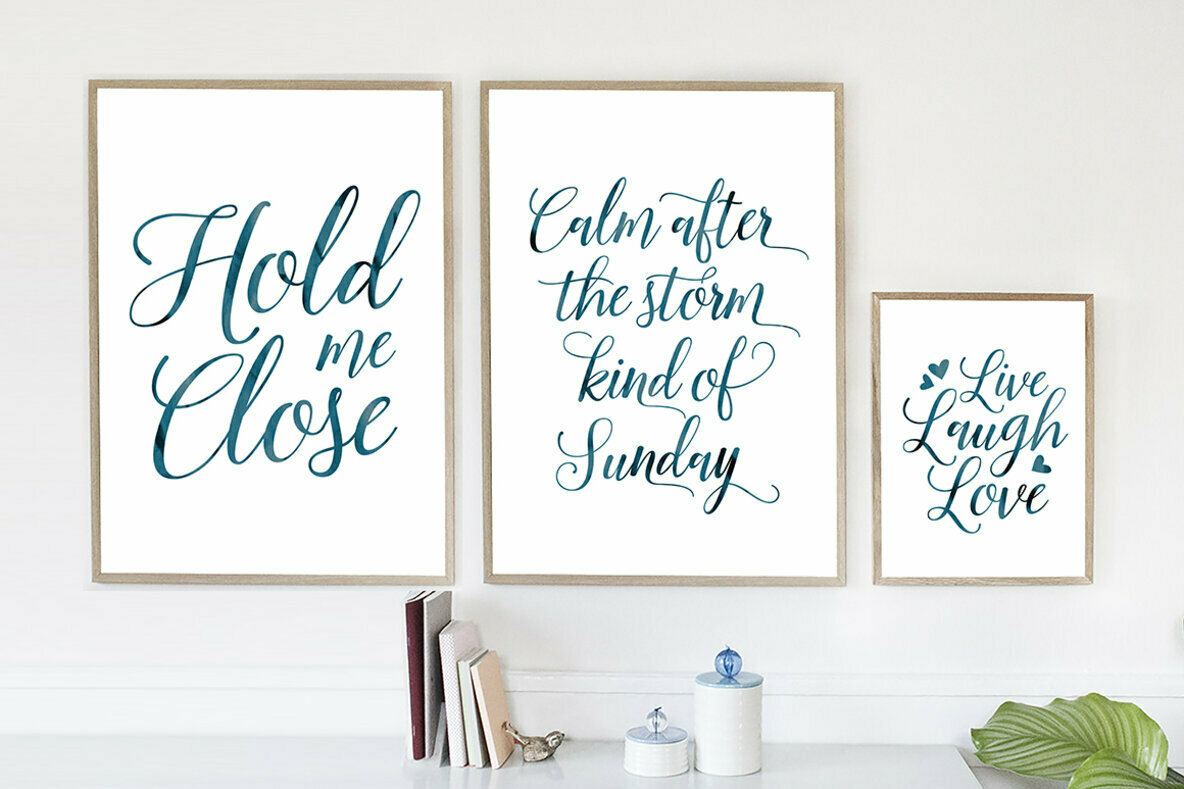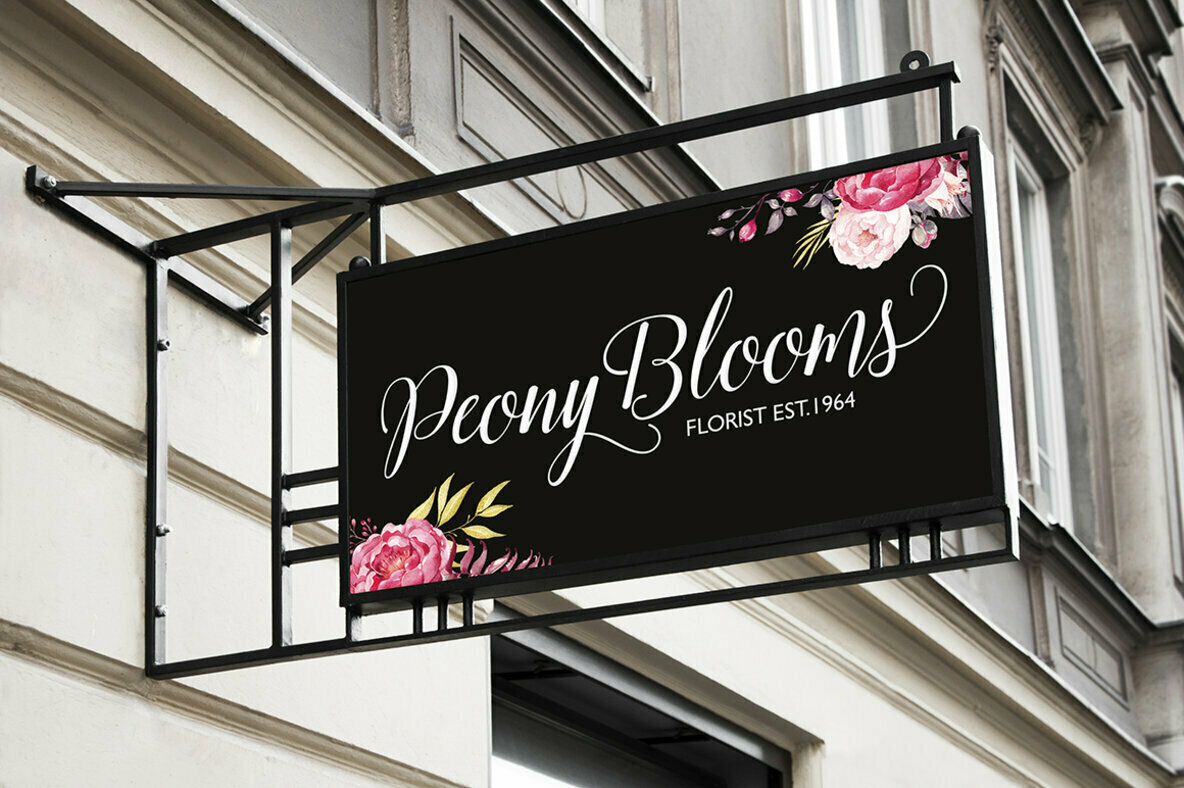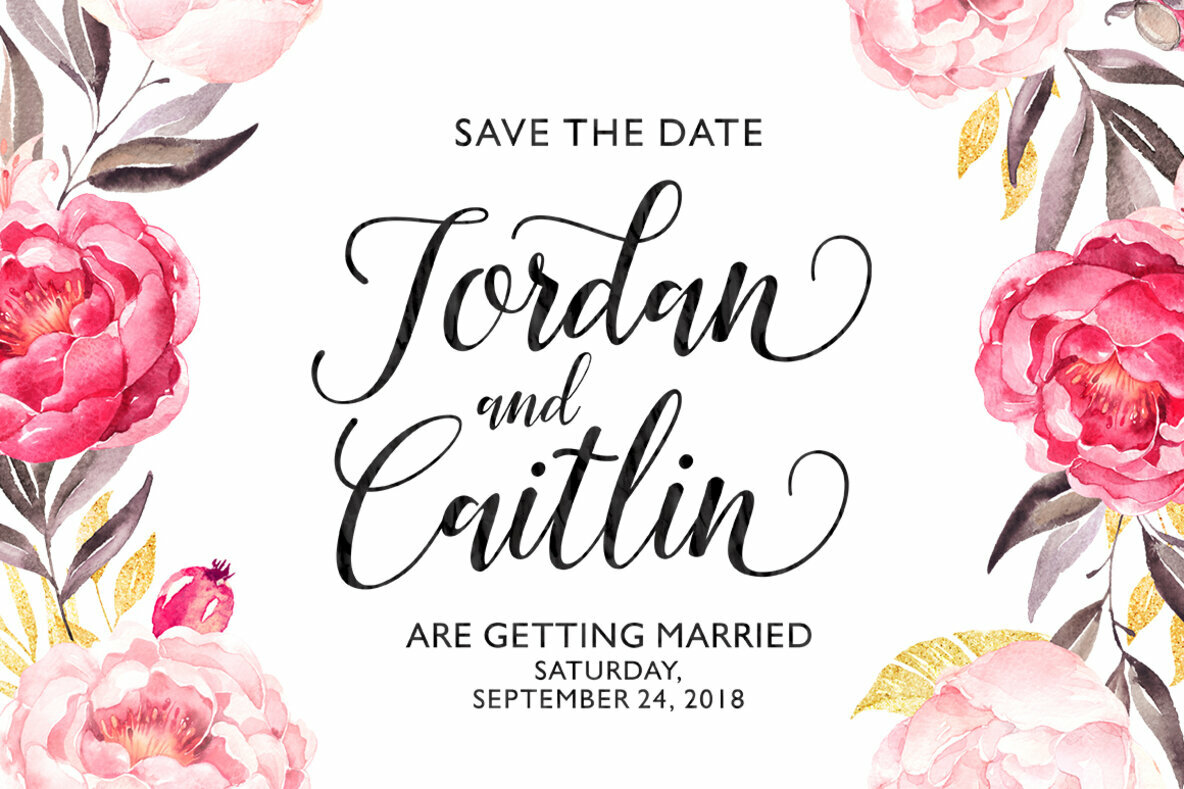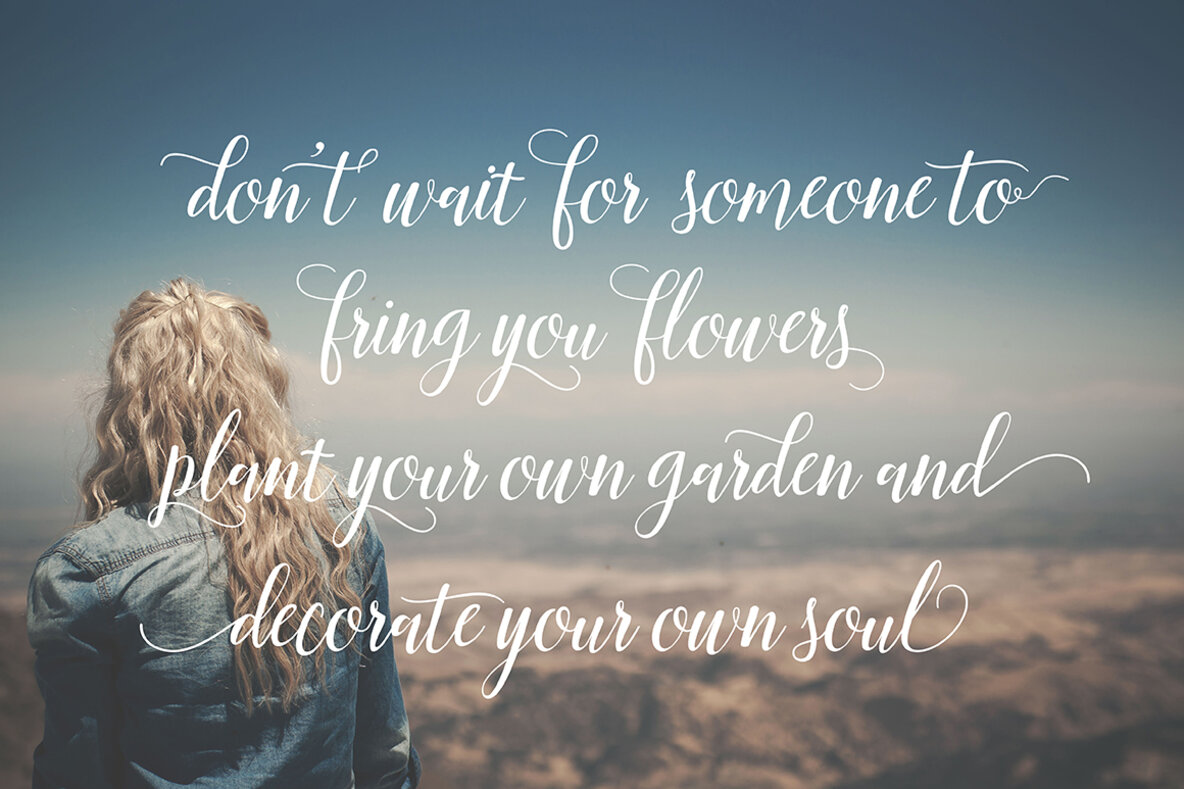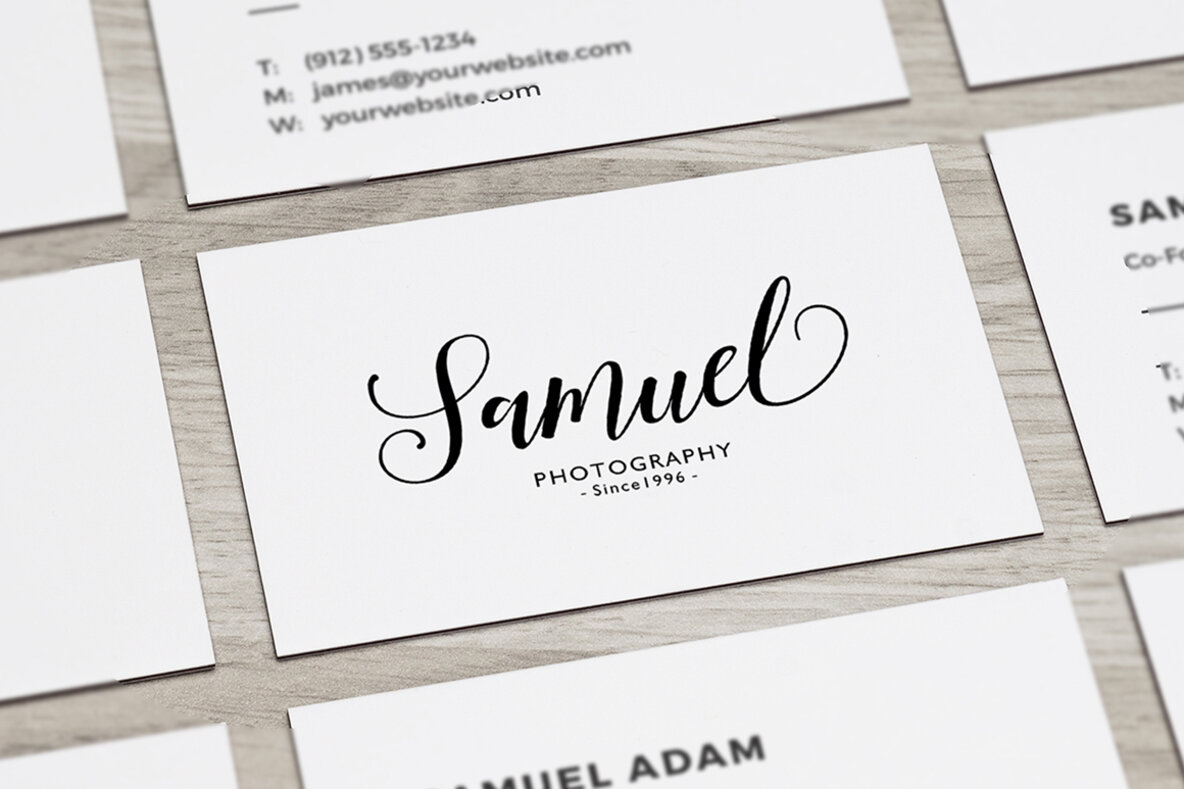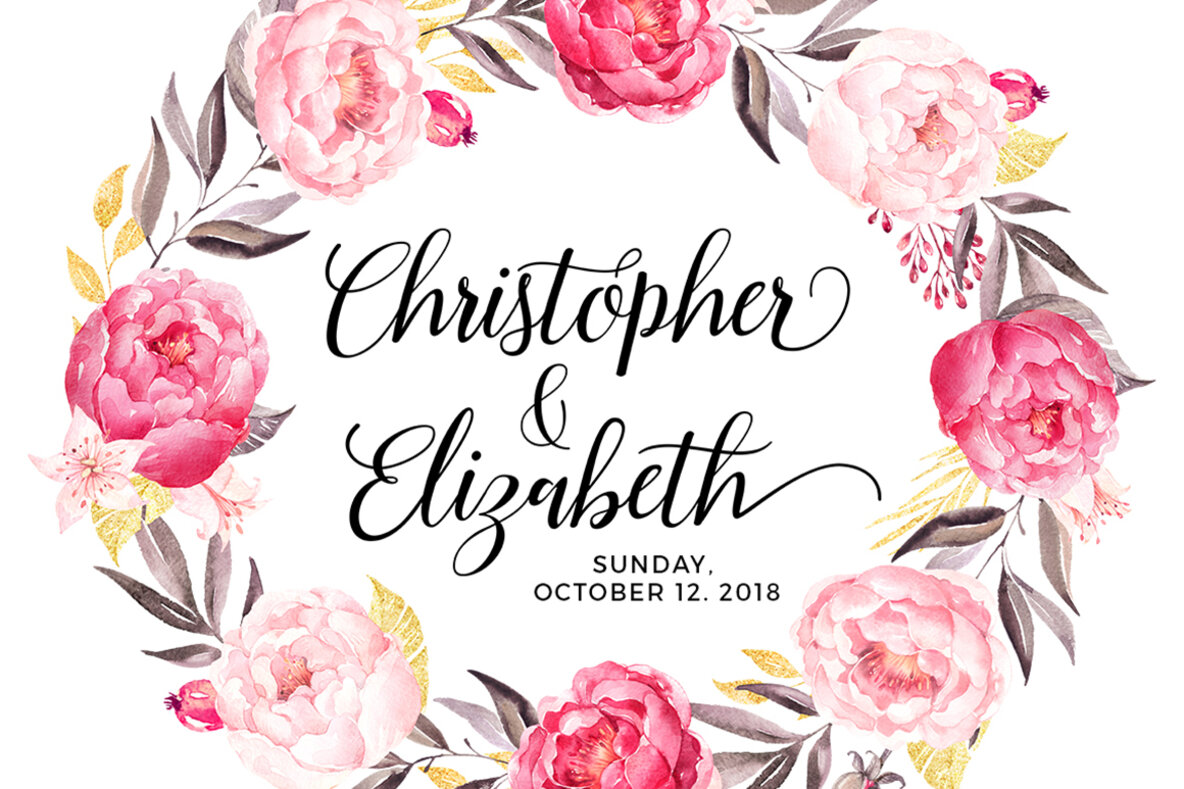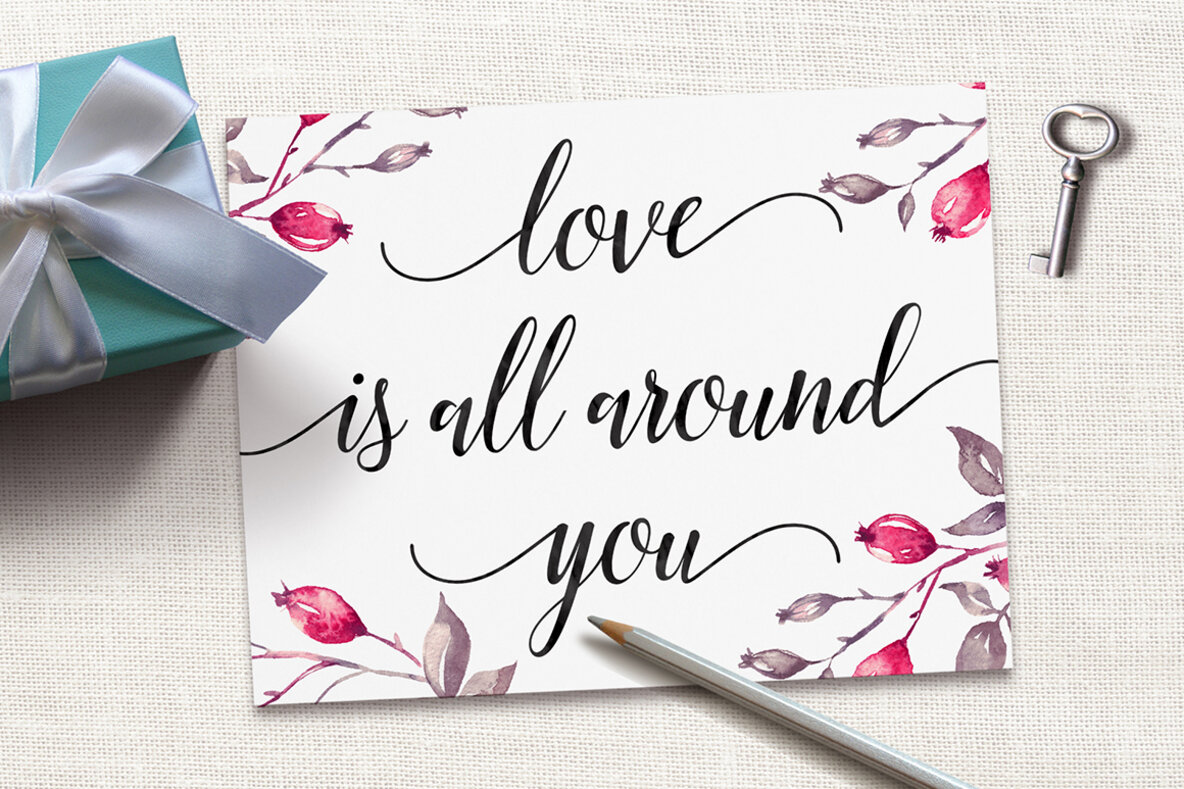
Munira Script Font
Munira Script by Akmal Yusar revives the art of modern calligraphy with its engaging blend of charm and versatility. This typeface, offered in both Regular and Bold, exudes a quaint elegance that is suitable for a myriad of design applications. From logos and product packaging to wedding invitations and branding, its seamless adaptability is undeniable. The thoughtful swashes enhance its visual appeal, rendering it perfect for headlines, signage, labels, signatures, book covers, posters, and memorable quotes. Leveraging the font's OpenType capabilities requires software that supports these features, such as Adobe Illustrator CS, Adobe InDesign, CorelDraw X6-X7, or Microsoft Word 2010 and later versions. Enhance your design repertoire with the stylish allure of Munira Script.Munira Script: Casual Calligraphy with Alluring Swashes